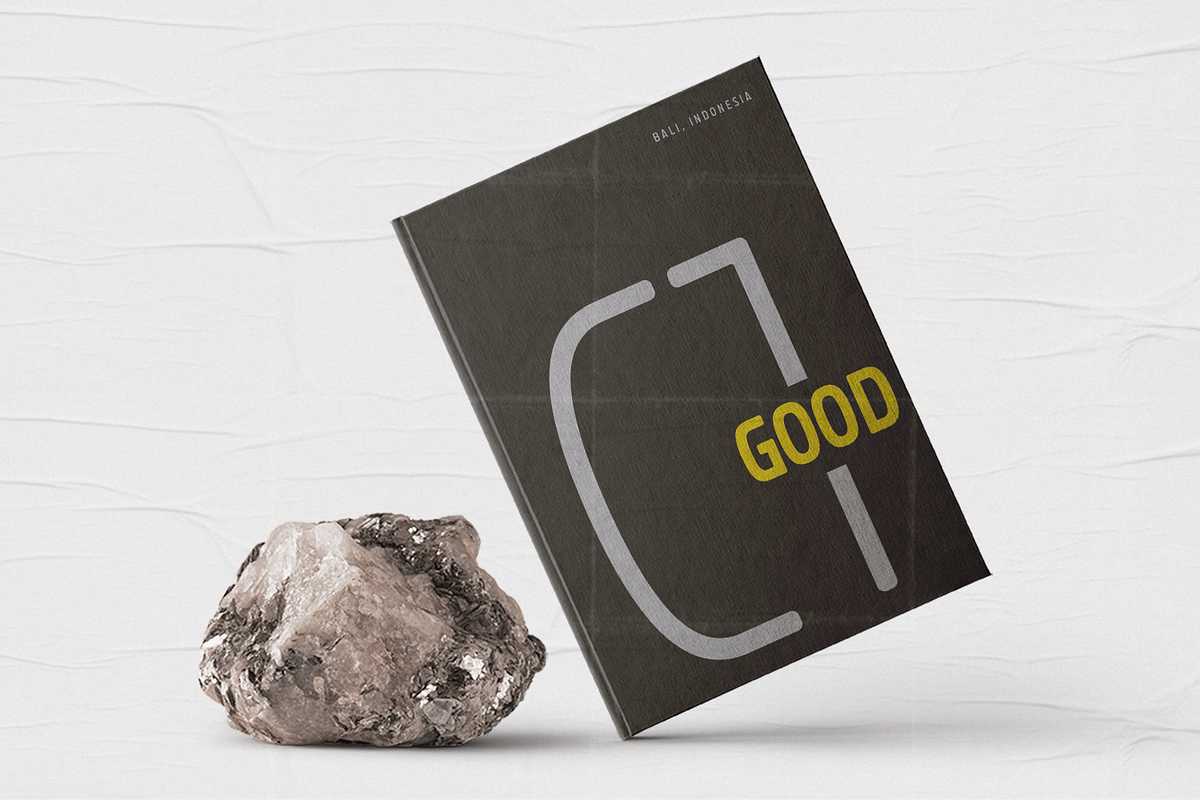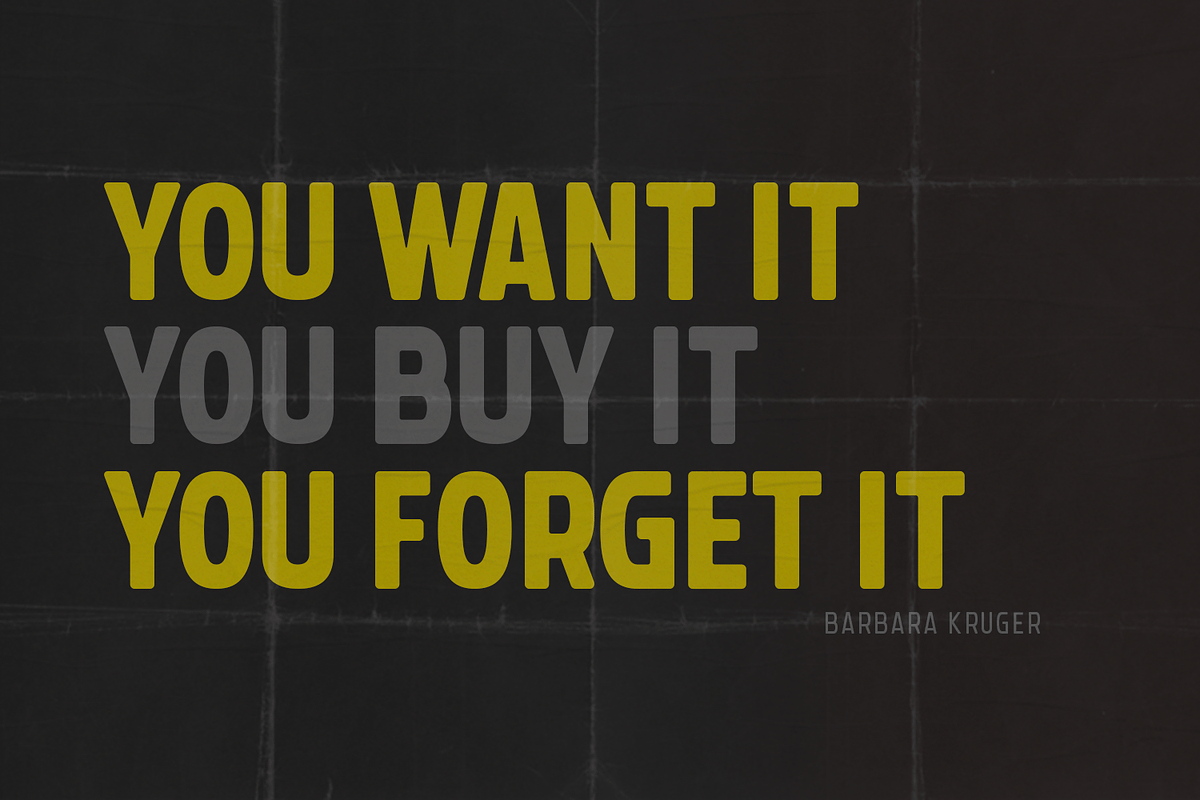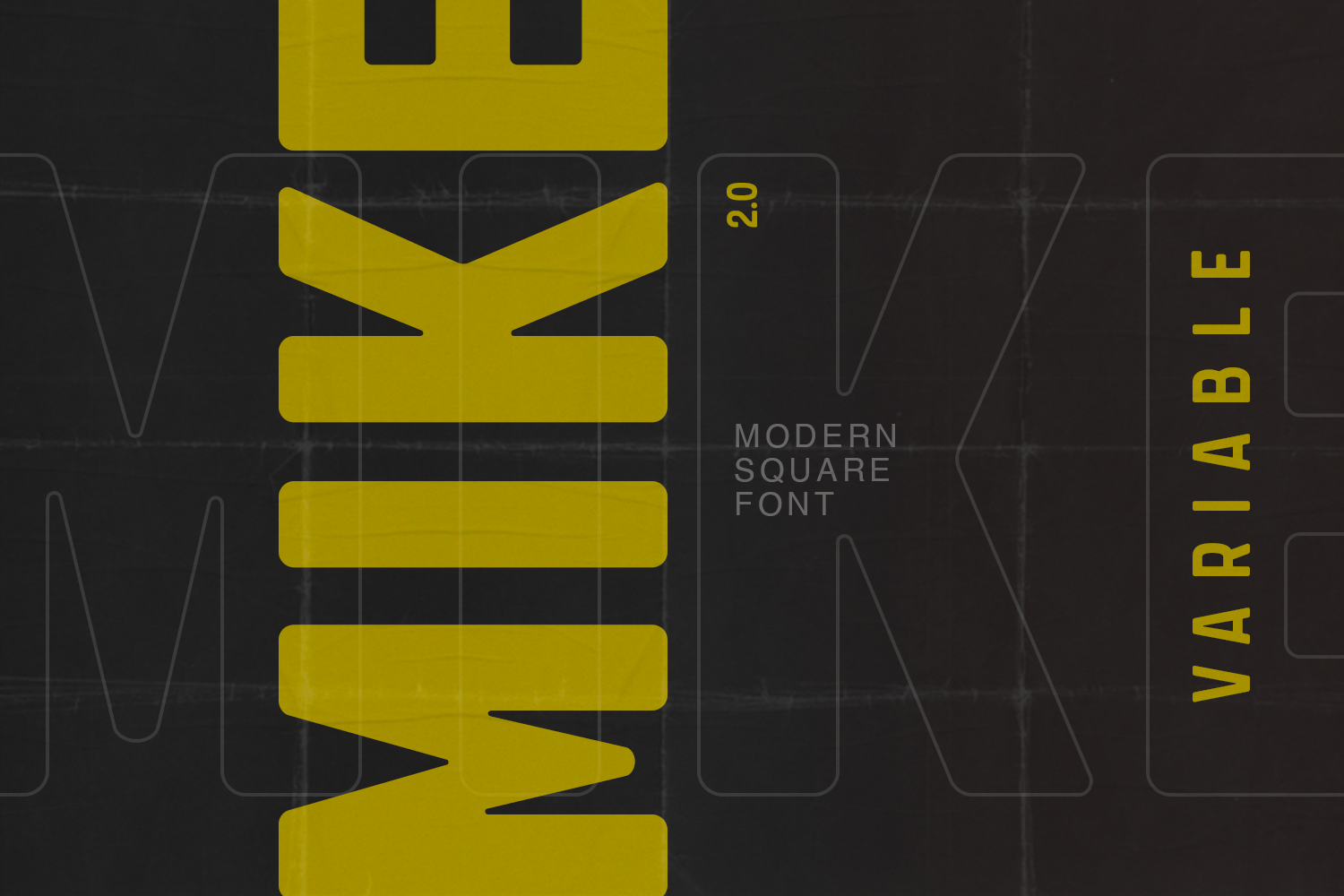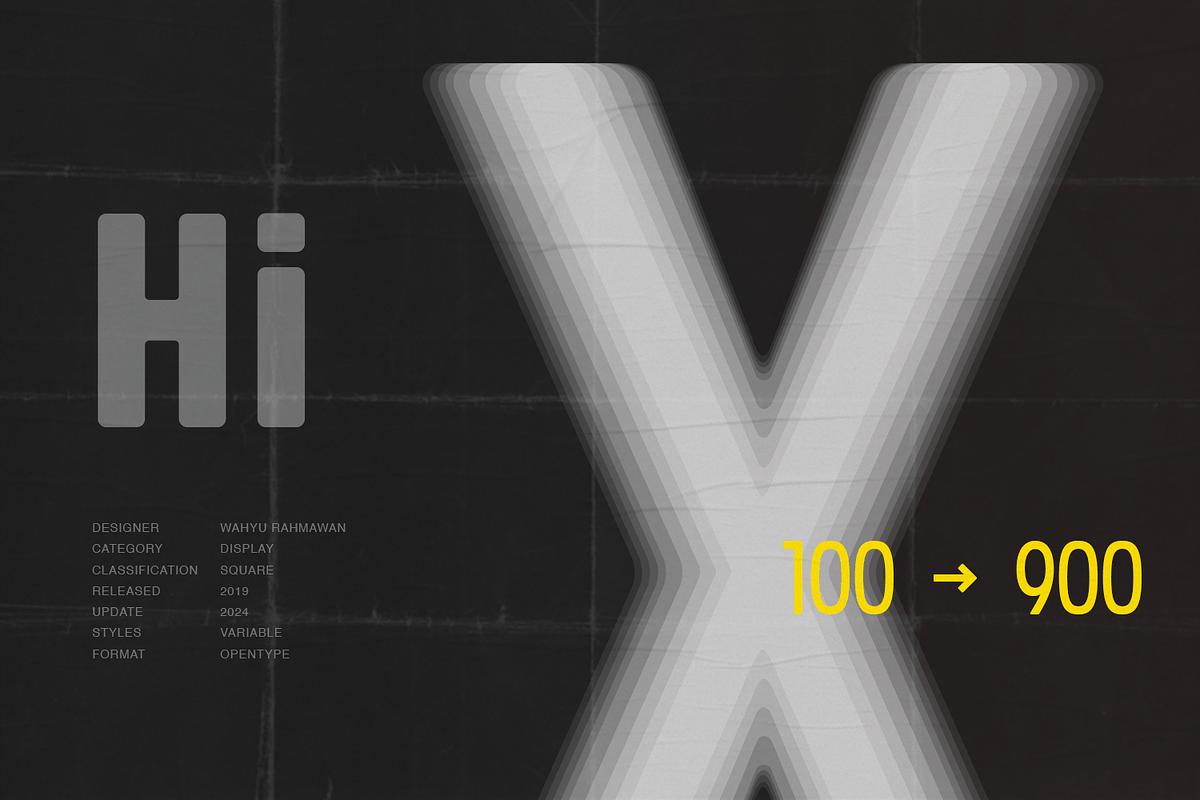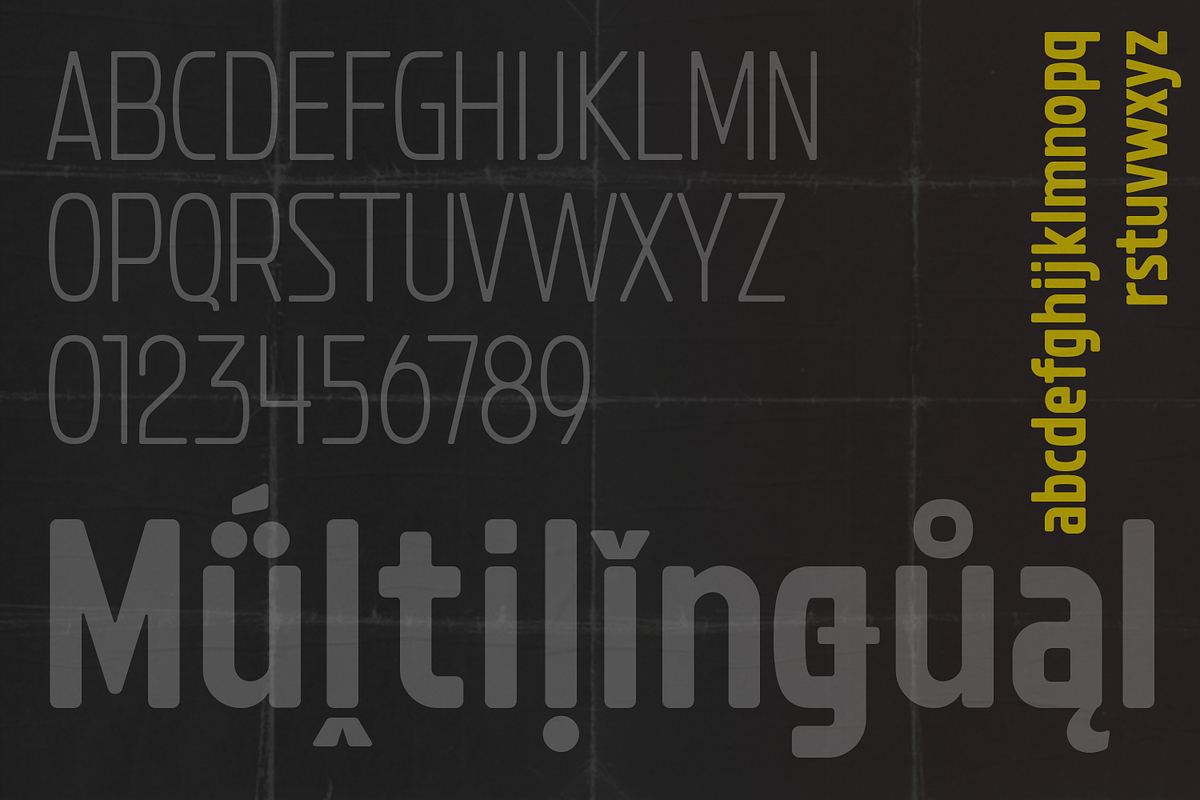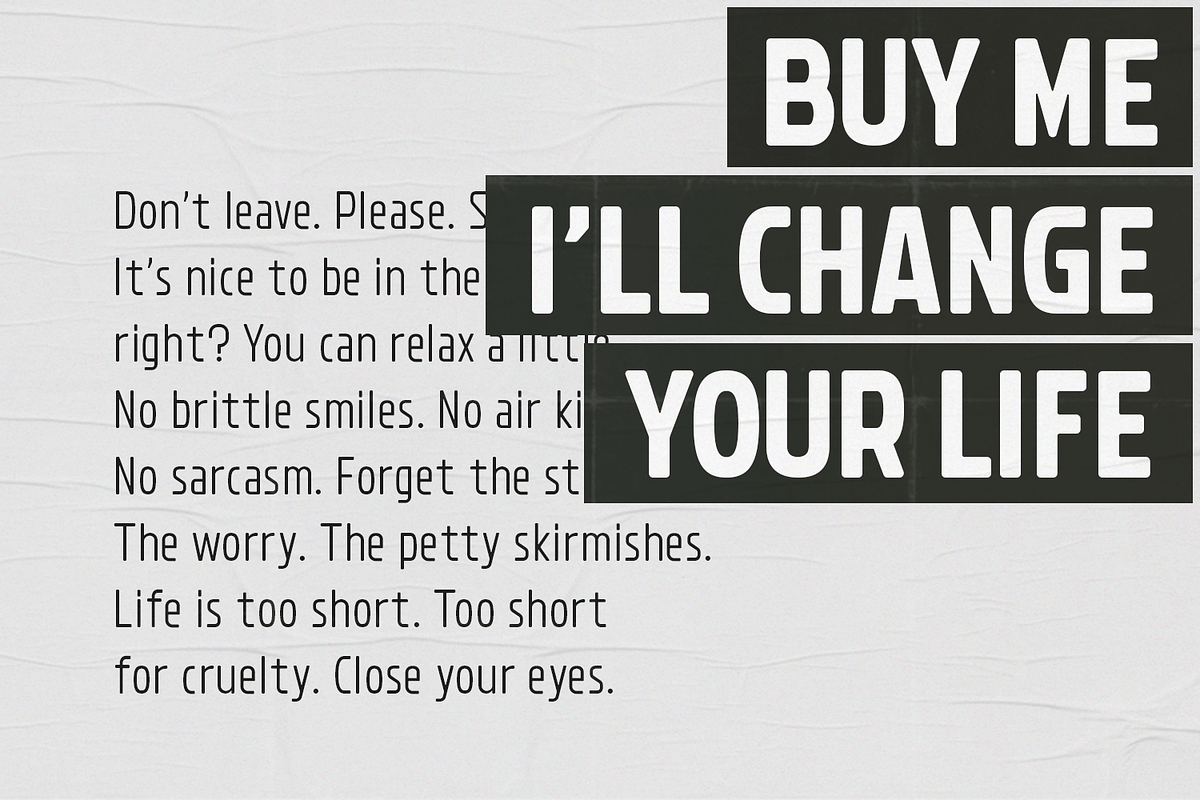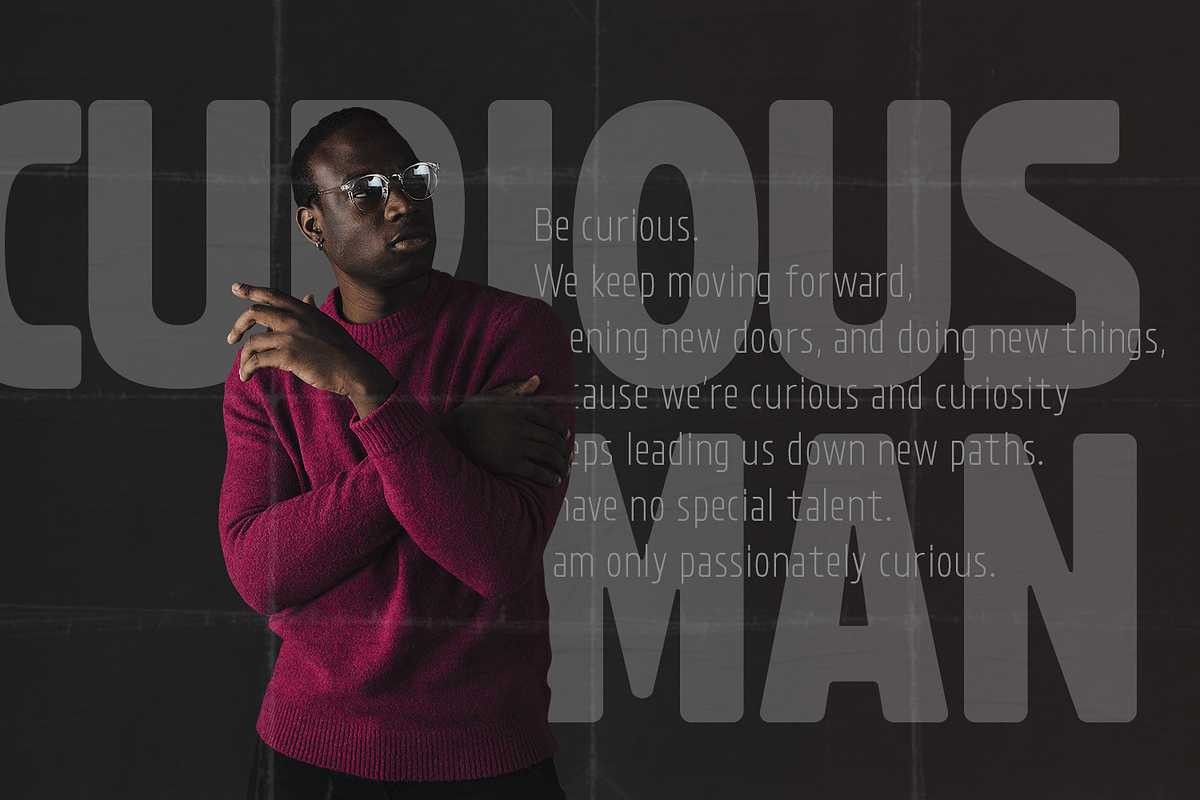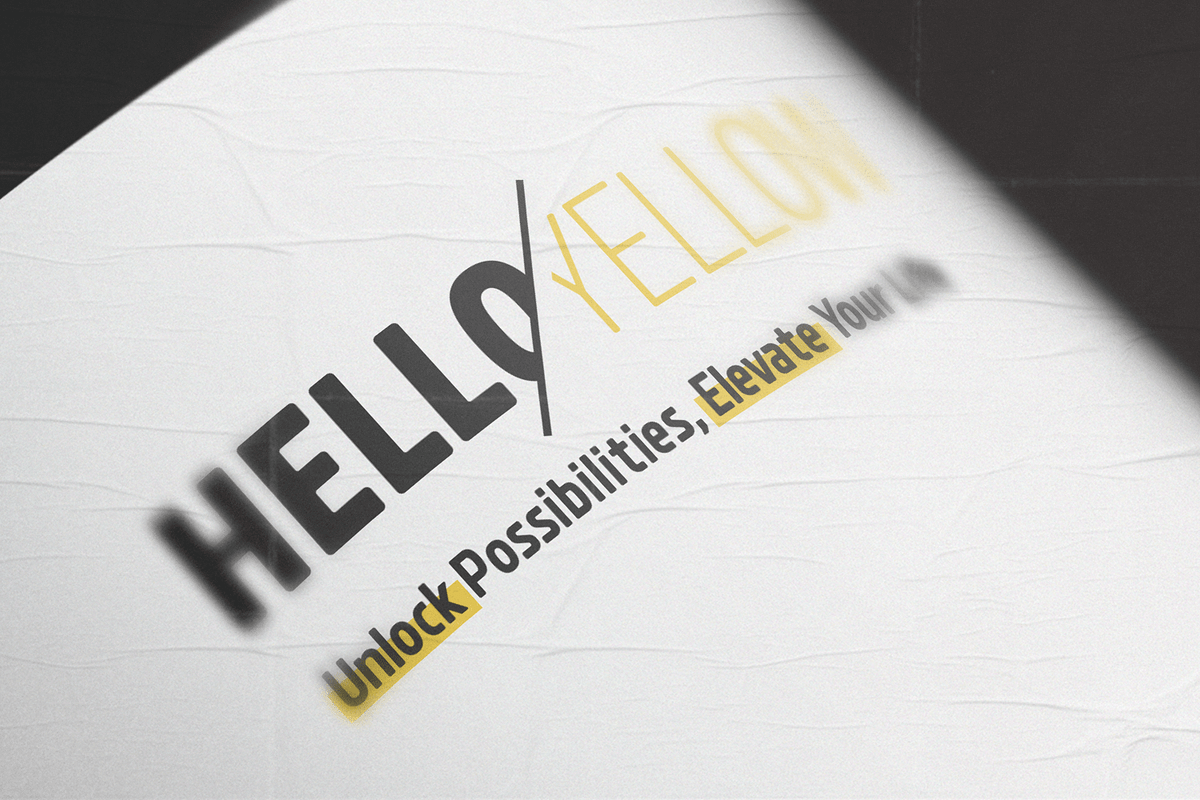
Mike Sans - Variable Font
Mike Sans is a contemporary sans serif font with a square design that enhances versatility through clean, modern glyphs. It features variable weight with unlimited options, making it ideal for a wide range of display applications.
Variable (1 axis – Weight)
9 Styles (9 Styles (Thin 100, ExtraLight 200, Light 300, Regular 400, Medium 500, SemiBold 600, Bold 700, ExtraBold 800, Heavy 900)